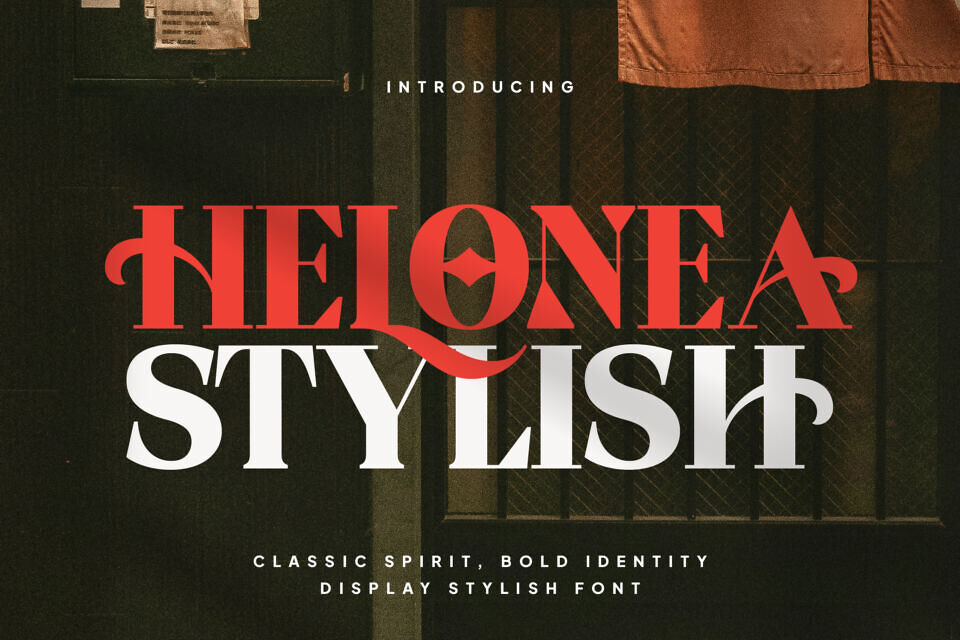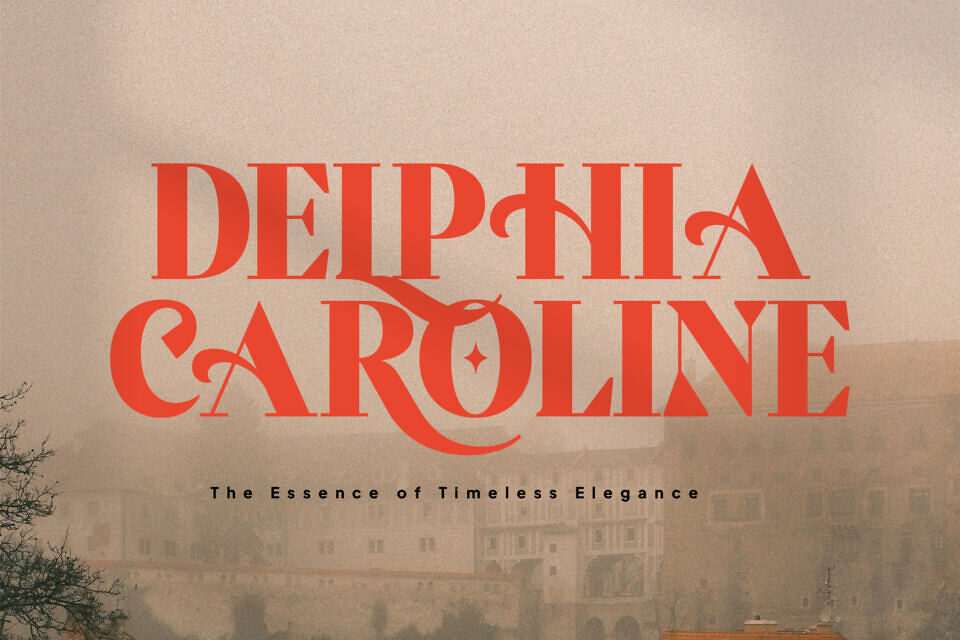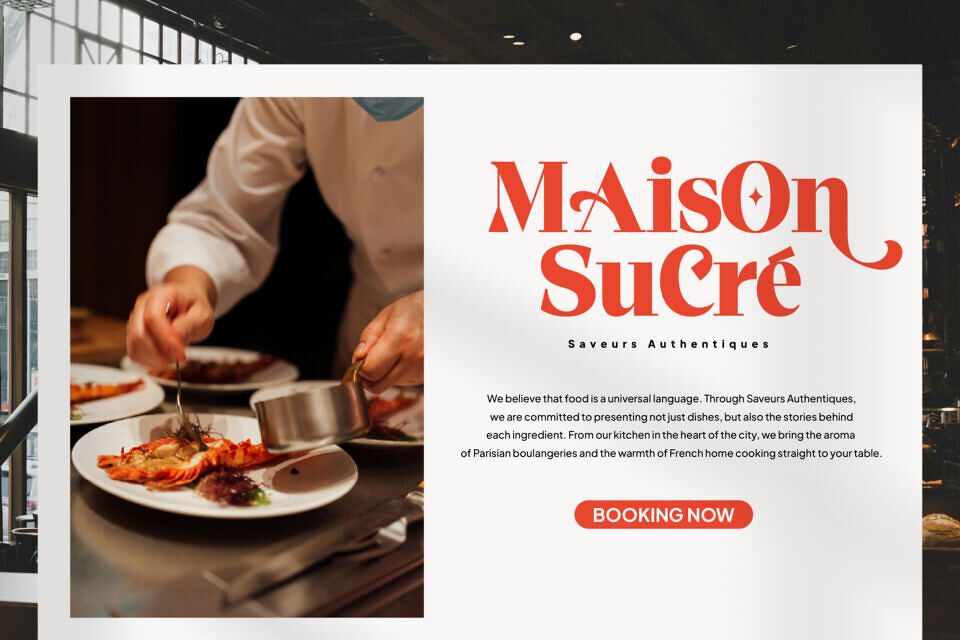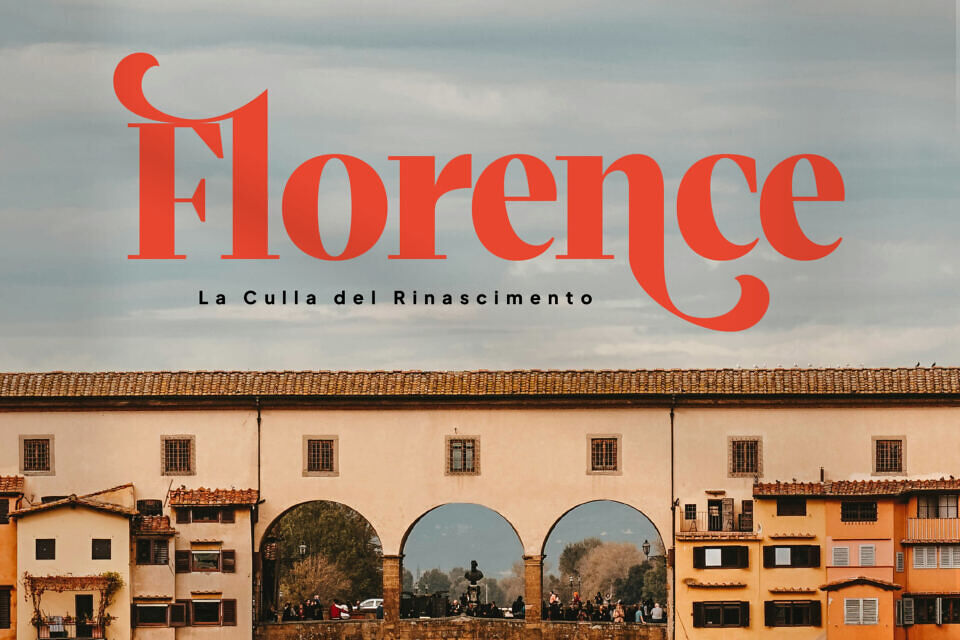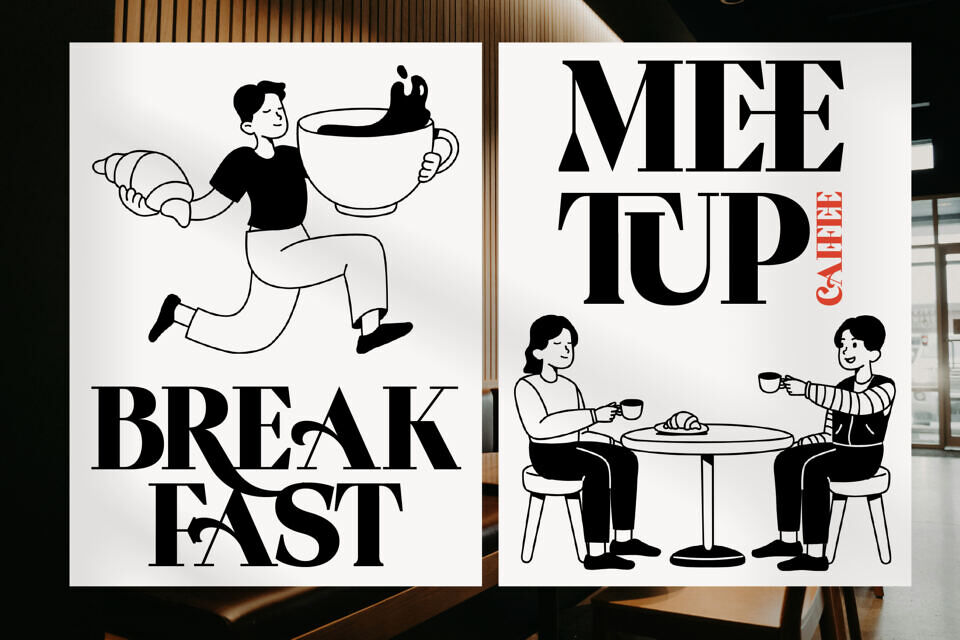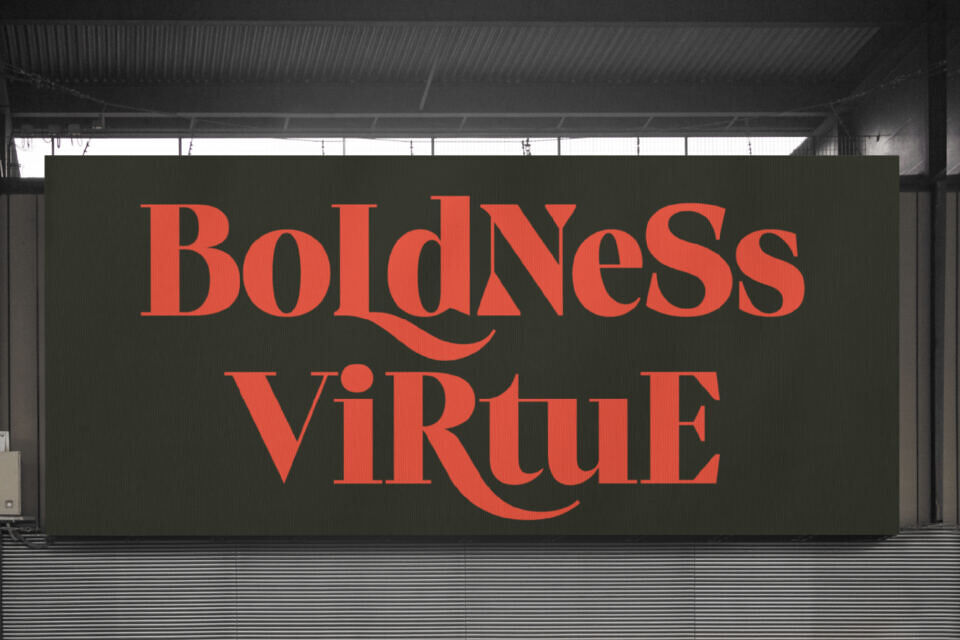
Helonea Font
Helonea embodies understated elegance, evoking the sophistication of a Milanese gallery or the subtle glow of a vintage watch. This refined aesthetic blends classical Roman proportions with modern avant-garde flair, bridging the gap between timeless heritage and bold, contemporary style.
With features like ligatures and alternates, Helonea’s typography can be tailored to create unique, bespoke designs that exude classic charm and modern flair.